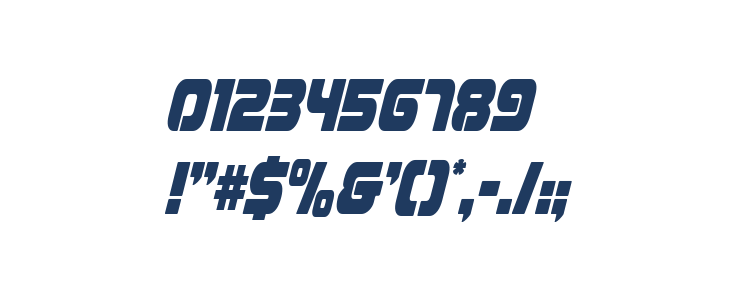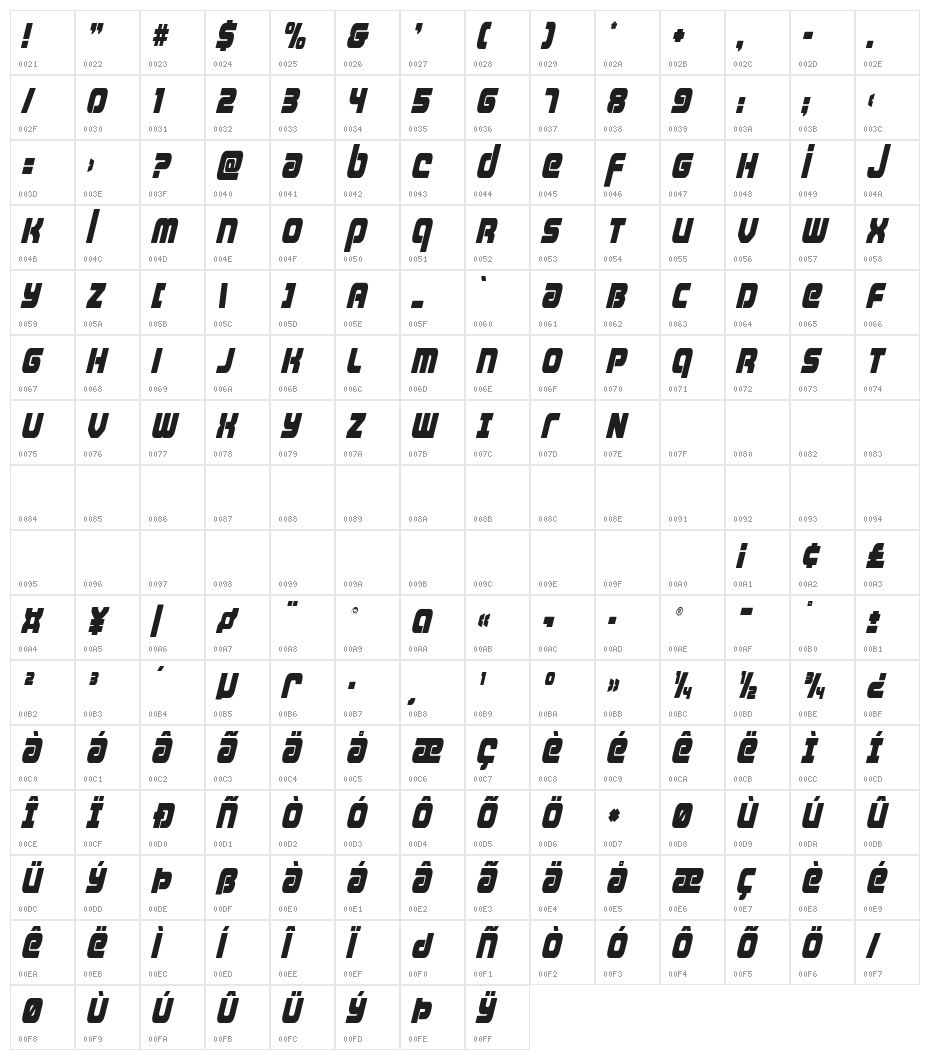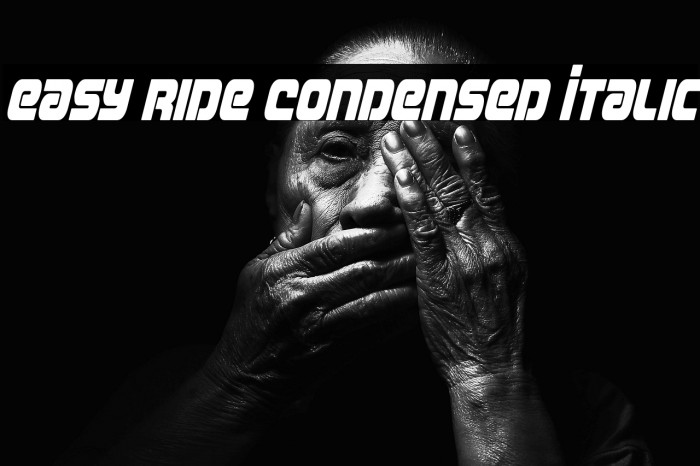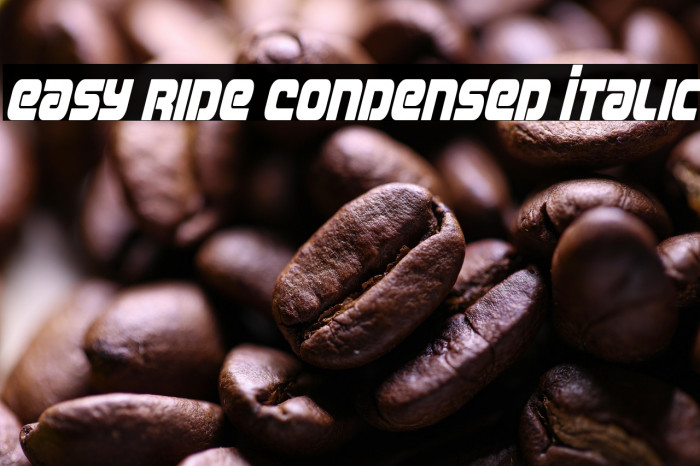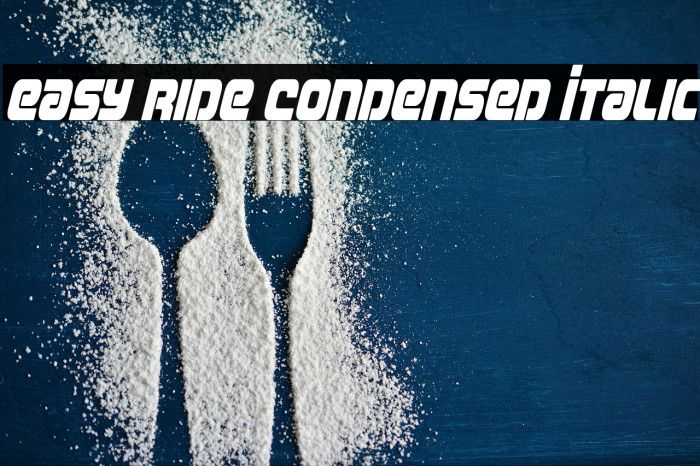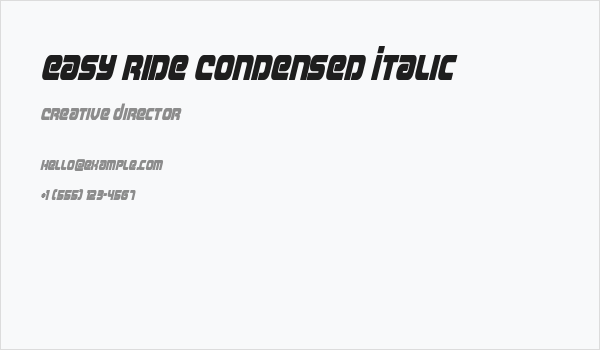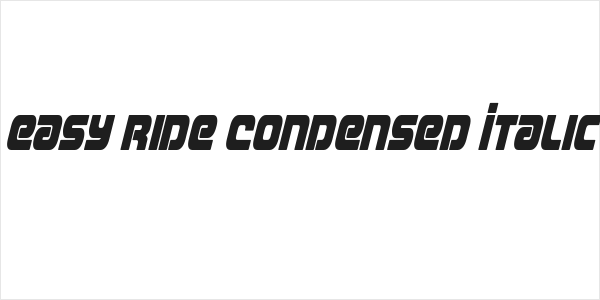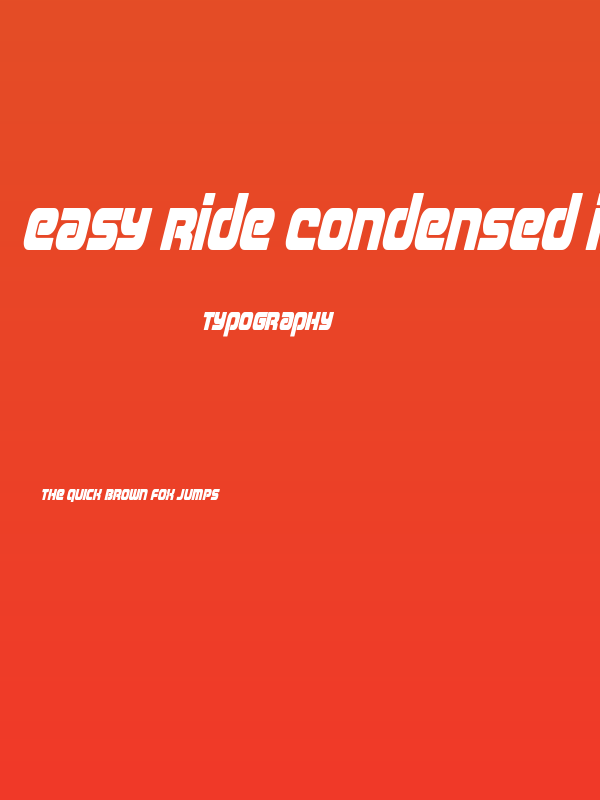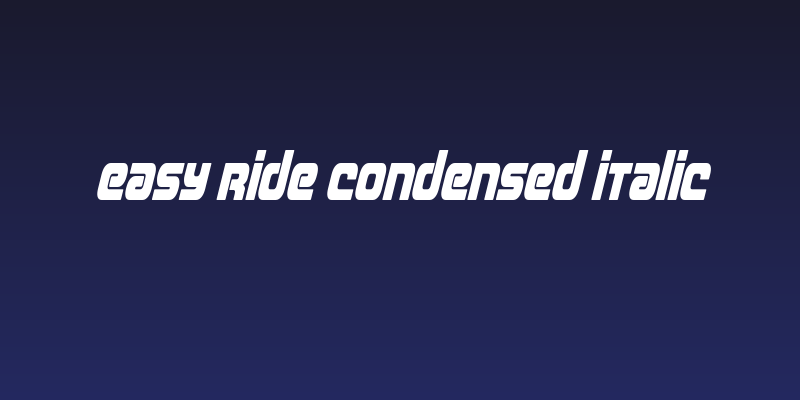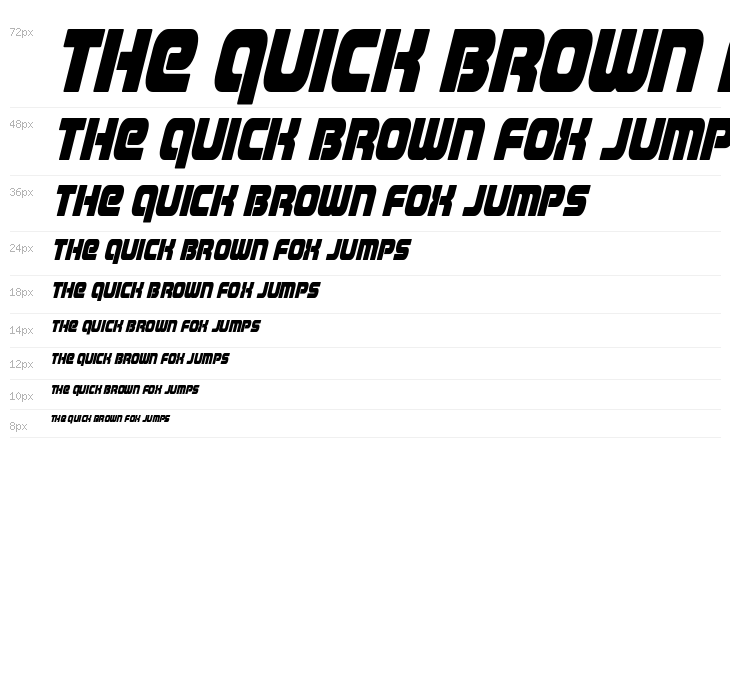
Easy Ride Condensed Italic Font
Easy Ride Condensed Italic Description
This font features a bold, dynamic style with a condensed and italicized form. The characters are designed with a futuristic and sporty aesthetic, showcasing sharp angles and a streamlined appearance. The uppercase and lowercase letters maintain a consistent slant, enhancing the sense of motion and speed. The numbers and special characters follow the same design principles, ensuring uniformity across all glyphs. The font's boldness and condensed width make it ideal for impactful headlines and branding that requires a modern, energetic vibe.
| Proposed Projects | Ideal for sports branding, automotive logos, dynamic headlines, and modern advertising campaigns. |